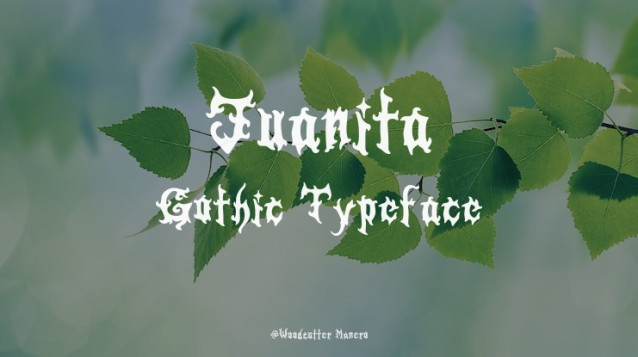
Juanita Gothic Font
Juanita Gothic Font is a distinct, highly detailed Horror Metal Font. It would make a great choice for exquisite retro-urban designs, tattoo business branding, logos, vintage designs, and more.
The Bride of Spain.